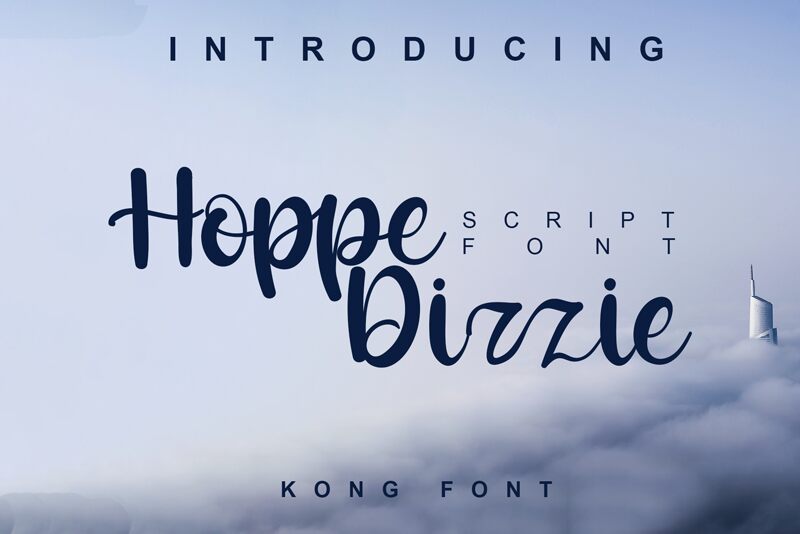
Hoppe Dizzie font family by Kong Font consists of 4 modern script font styles. This free font family mixes elegance with modern elements to create a relaxed script where the letters inspire a natural connection. Each letter seems to flow and be heavily influenced by cursive handwriting while certain aspects maintain a contemporary feel. The fonts made by the mind behind this handwriting font are reflected in each detail, with a fresh approach that balances beauty and readability.
This versatile font family will feel right at home in a number of friendly, approachable contexts. Personal communications like emails, website elements, handwritten notes, or content such as post images and captions all benefit from the style. Merchandise, posters, or apparel like football jerseys or team uniforms will also feel right holding this free font family.